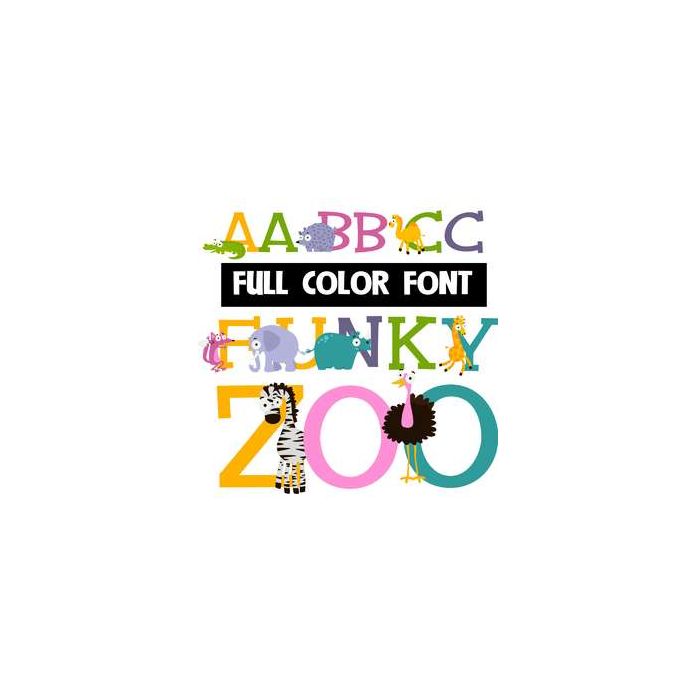
This full-color font features animals next to colorful lettering. This font works best for titles, displays, posters and more. Please note color fonts will show as black in non compatible programs. This font type is compatible with Silhouette Studio.